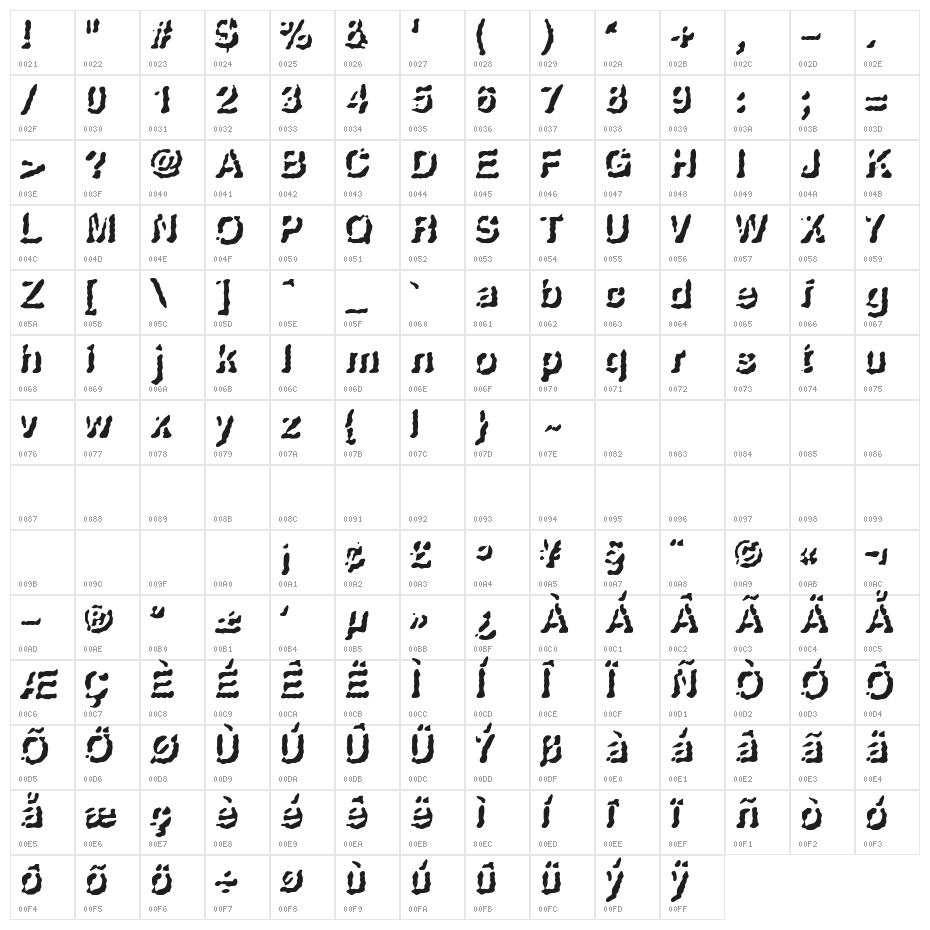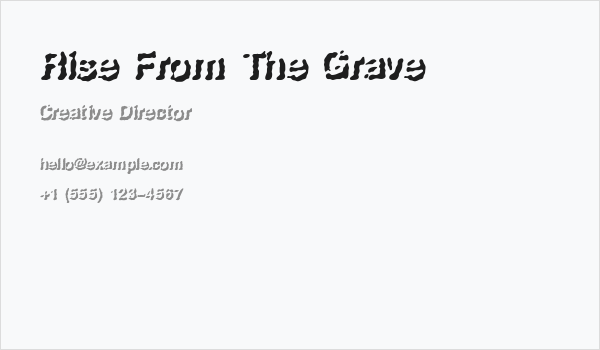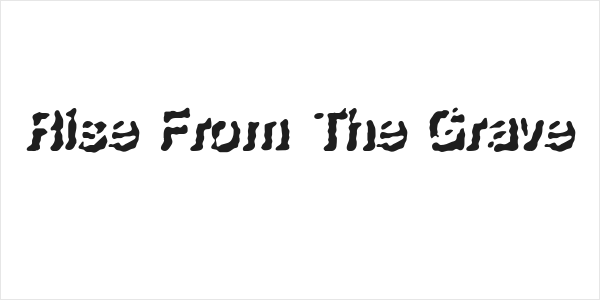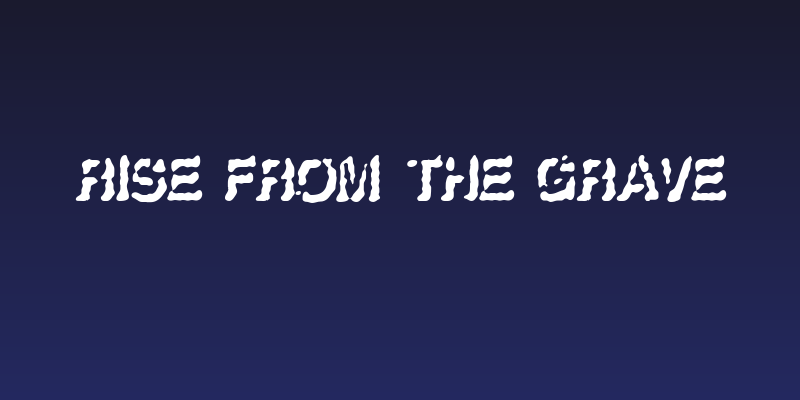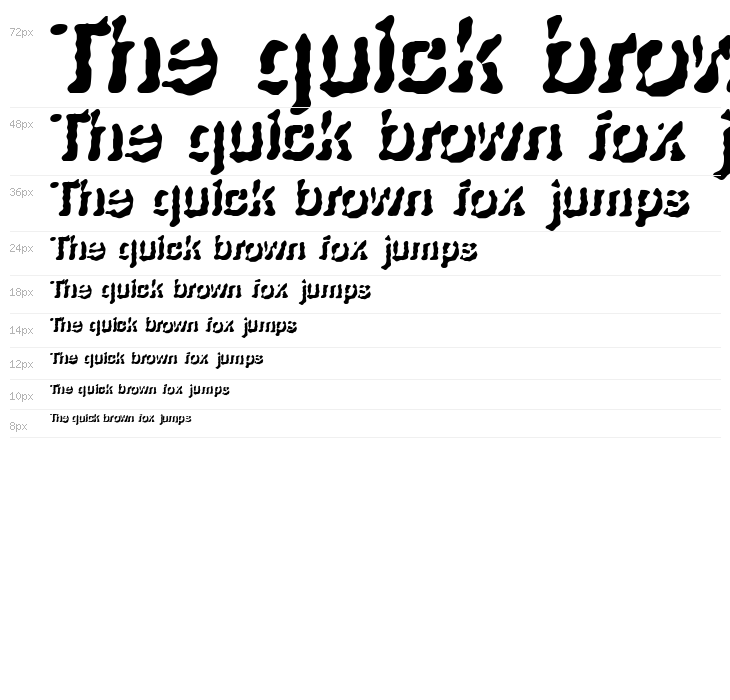
Rise From The Grave Font
Rise From The Grave Description
This font features a bold and rugged style with a distressed, eroded appearance that gives it a unique, organic feel. The characters are heavily textured, resembling decaying or weathered surfaces, which adds a dramatic and eerie quality. The uppercase and lowercase letters maintain a consistent design, with jagged edges and irregular shapes that create a sense of movement and energy. The numbers and special characters follow the same theme, ensuring a cohesive look across all elements. This font is ideal for projects that require a bold, eye-catching display with a touch of horror or mystery.
| Proposed Projects | Perfect for horror-themed posters, Halloween invitations, video game titles, and any design needing a dramatic, eerie touch. |